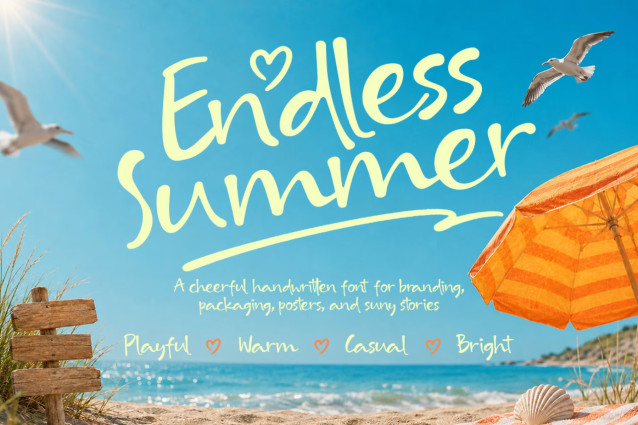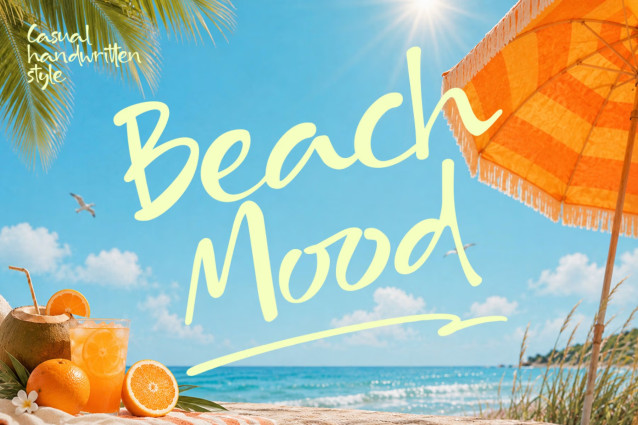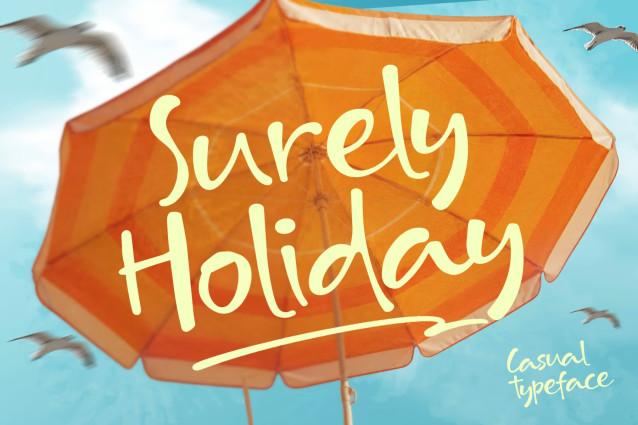
Surely Holiday – Summer Handwritten Font
Surely Holiday Summer Handwritten Font is a casual handwritten typeface inspired by warm beach days, sunny vacations, and relaxed summer moments. Its smooth strokes and friendly letterforms create a cheerful, easygoing personality that feels fresh, bright, and naturally playful.